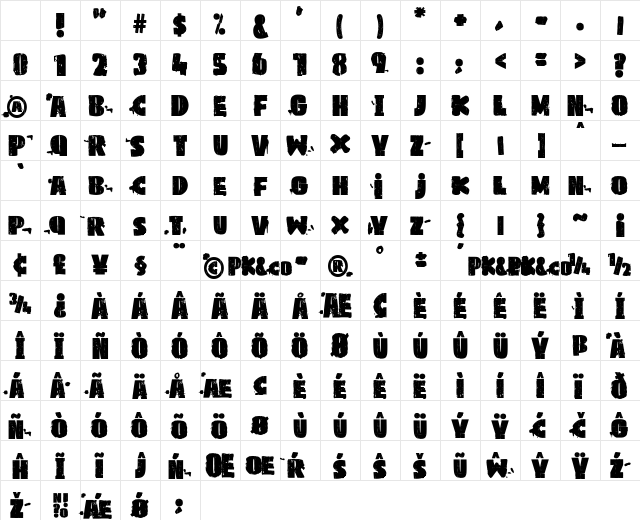
Complete PKco Regular glyph index. Displaying only characters natively supported by PKco Regular font.
PKco is a composed and adaptable typeface that performs quietly and consistently across a wide range of design contexts.